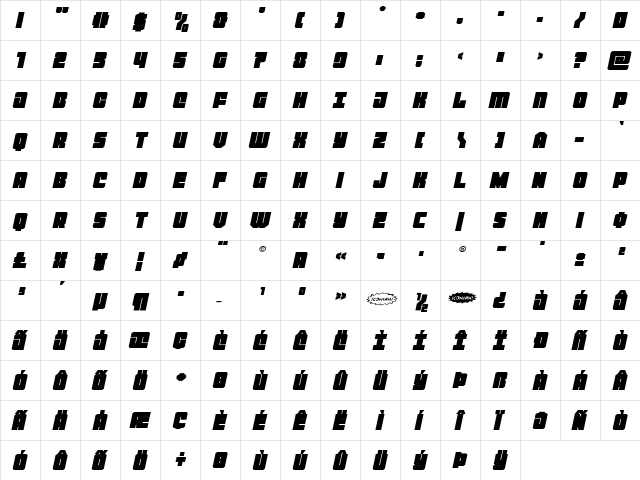
Homebase Expanded Italic Regular
Design Context for Homebase Expanded Italic Typeface
Homebase Expanded Italic is a composed and adaptable typeface that performs quietly and consistently across a wide range of design contexts. The slanted form adds forward momentum and visual energy.